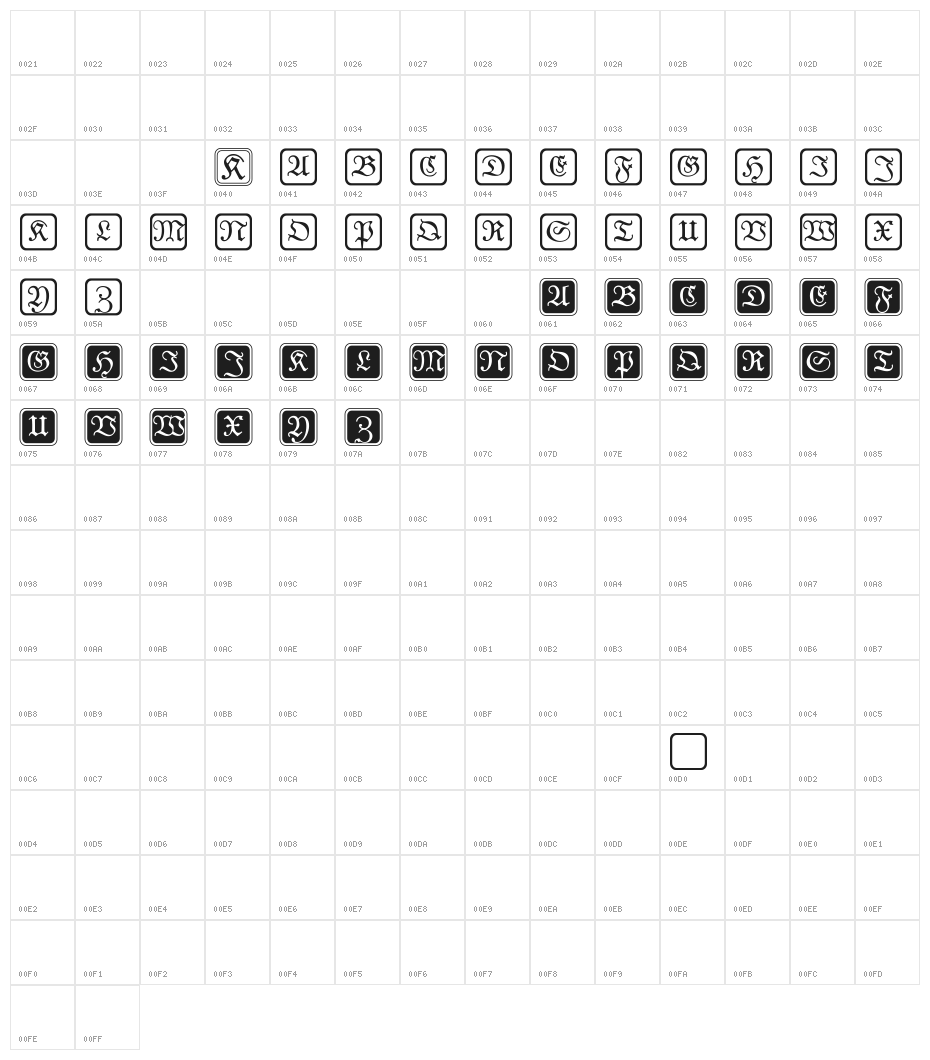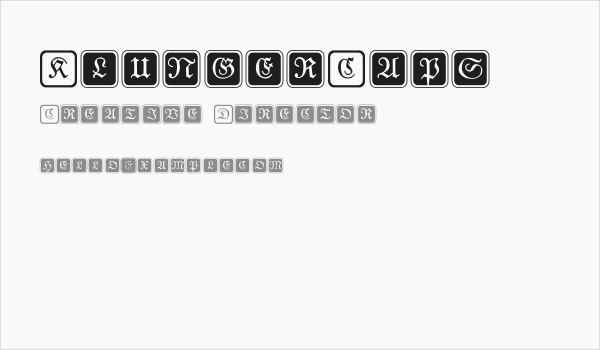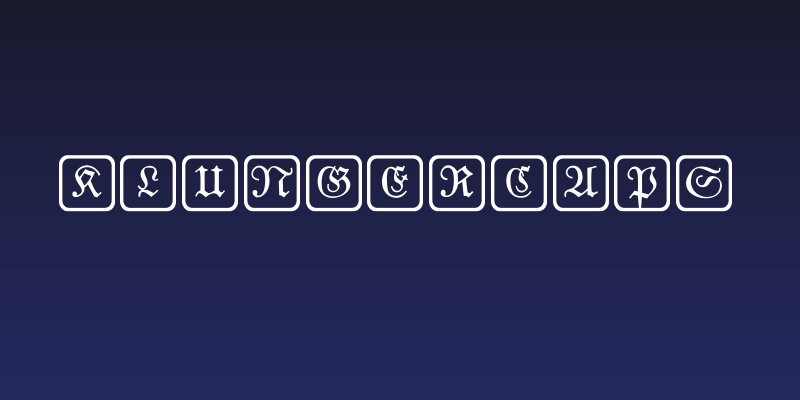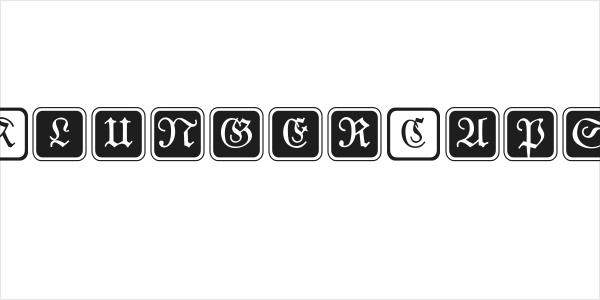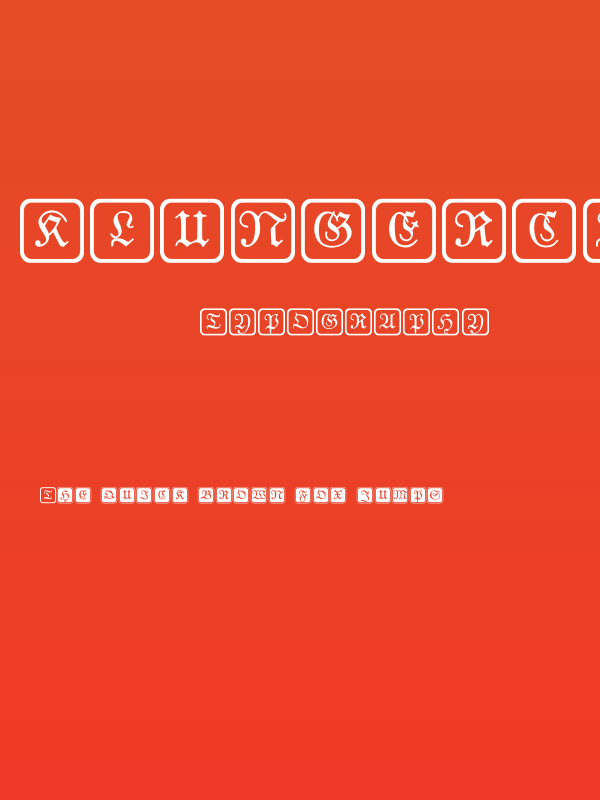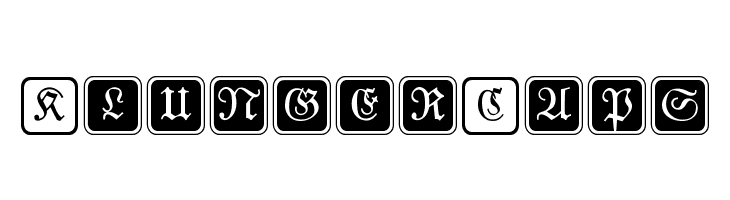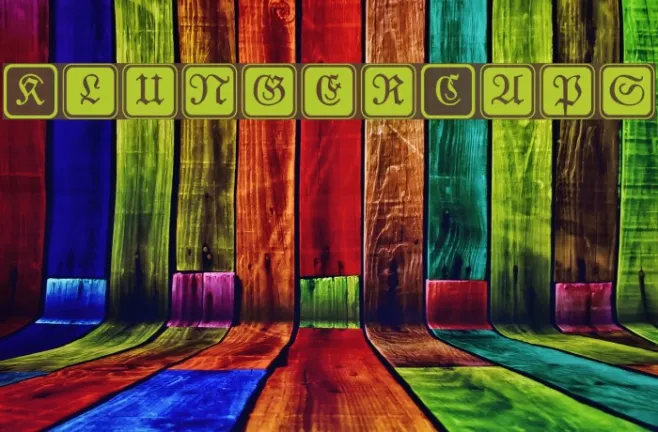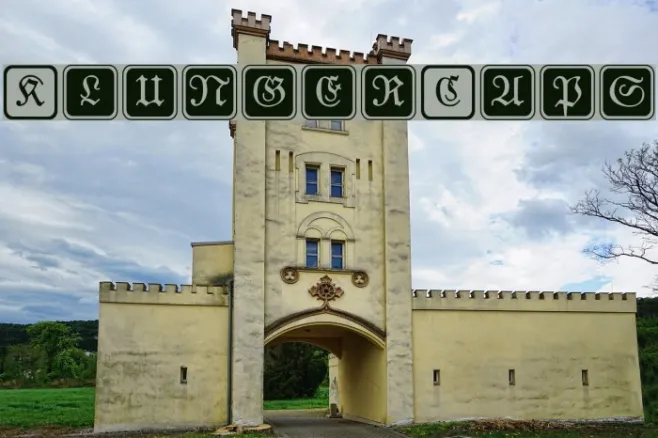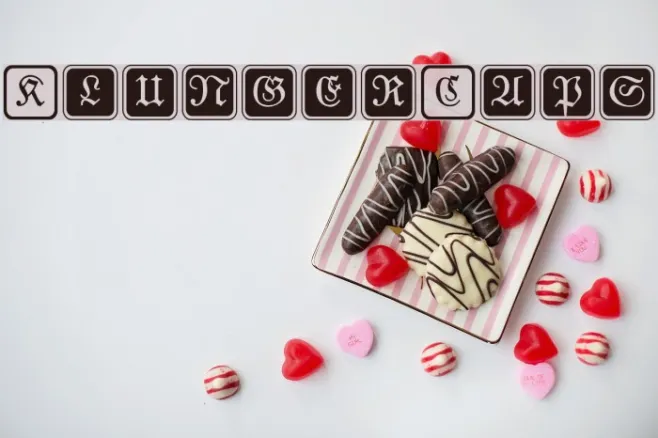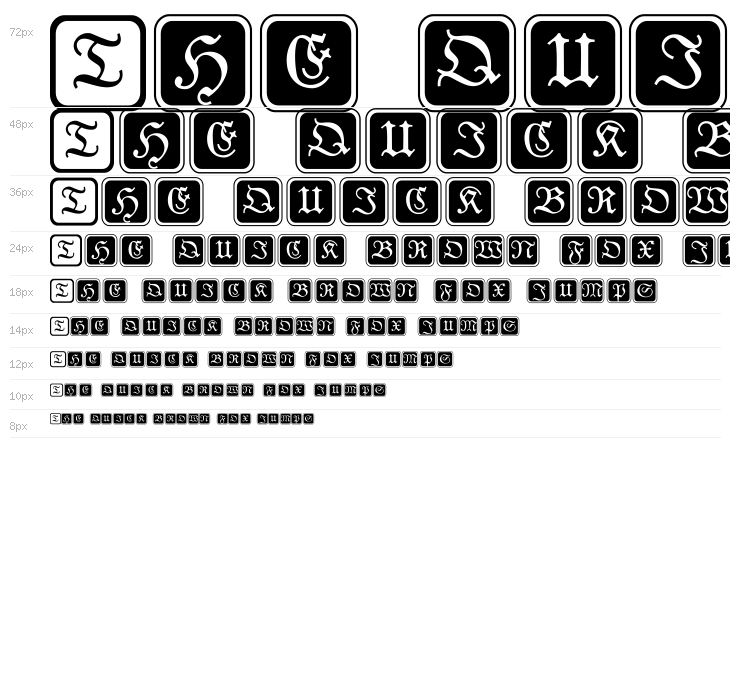
KlungerCaps Font
KlungerCaps Description
This font features a bold and decorative style with a distinct blackletter influence. Each character is enclosed in a square, creating a unique and structured appearance. The letters are ornate, with intricate details that give them a medieval, gothic feel. The boldness of the characters is emphasized by the thick strokes and high contrast between the black and white elements. The font's design is both eye-catching and sophisticated, making it suitable for projects that require a touch of elegance and historical flair.
| Proposed Projects | Ideal for vintage-themed designs, posters, book covers, and branding that requires a historical or gothic touch. |